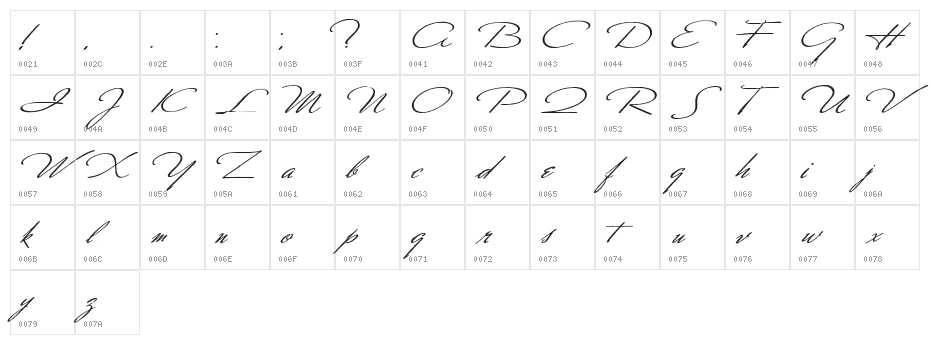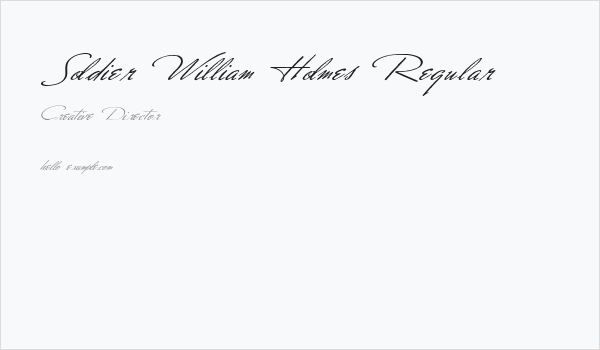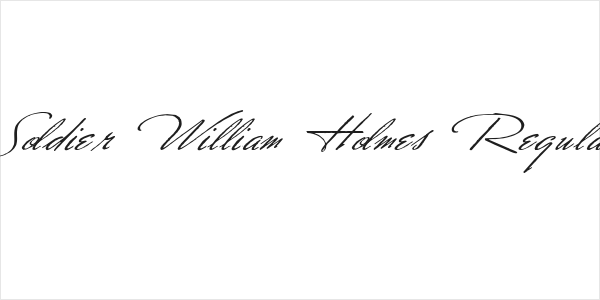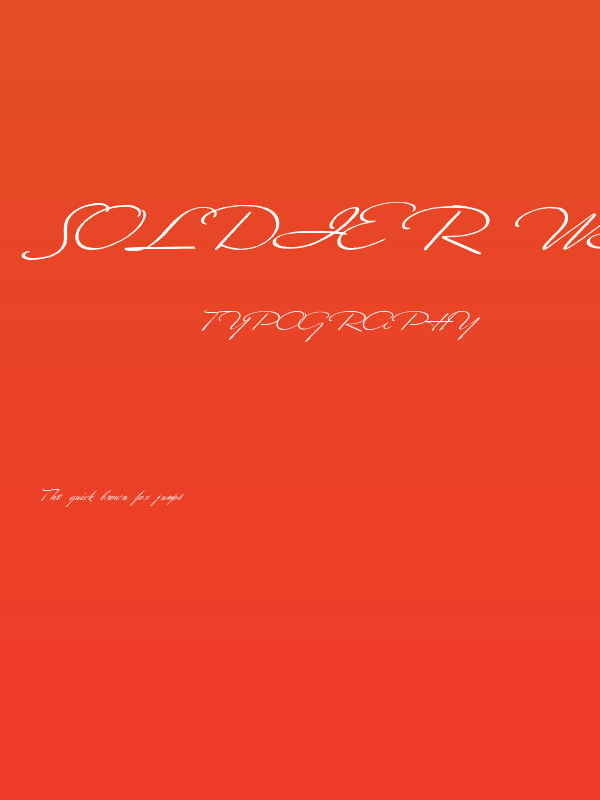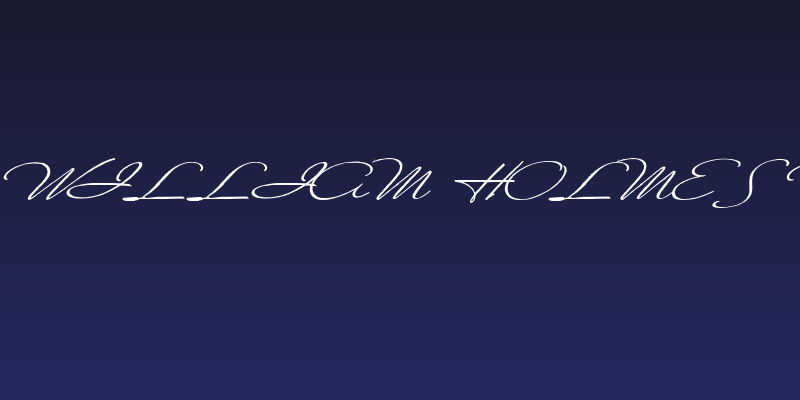
Soldier William Holmes Regular Font
Soldier William Holmes Regular Description
This font exudes a classic and elegant script style, characterized by its flowing, cursive letterforms that mimic the fluidity of handwriting. The uppercase letters are slightly elongated with graceful loops and swirls, while the lowercase letters maintain a consistent slant, enhancing the overall sophisticated appearance. The font's strokes vary in thickness, adding a dynamic and lively feel to the text. The special characters are designed to complement the alphabet, maintaining the same elegant and fluid style. This font is ideal for projects that require a touch of elegance and personal flair.
| Proposed Projects | Wedding invitations, elegant branding, personal stationery, and formal event programs. |